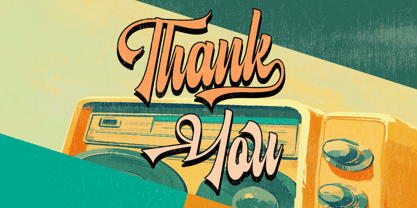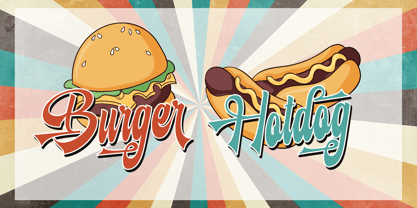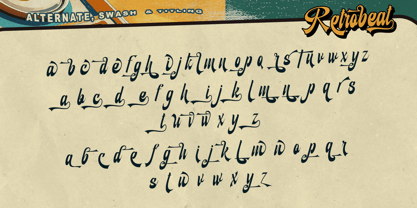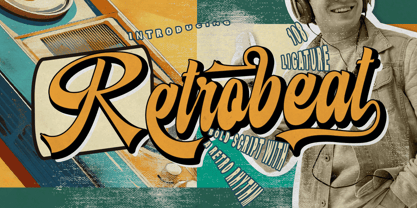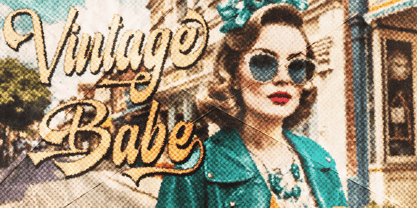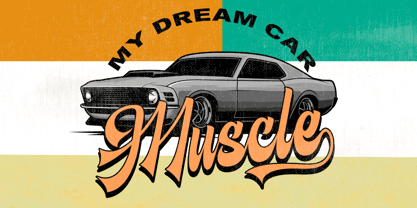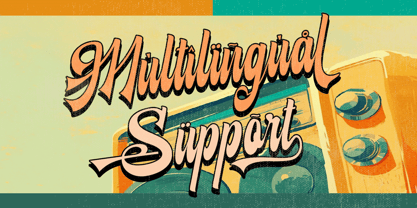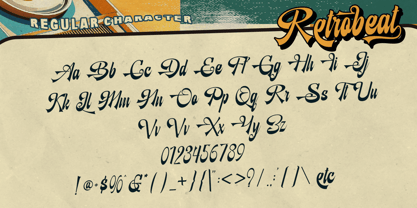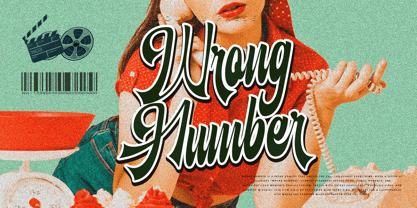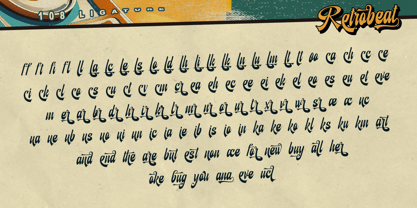
Retrobeat
by Letterara
The Retrobeat Font Family was designed by Thomas Aradea and published by Letterara. Retrobeat contains 2 styles and family package options. More about this family
Introducing Retrobeat, a bold script font that brings back the vibrant rhythm of the past. With its flowing strokes, strong curves, and groovy style, this typeface captures the true essence of retro design. Perfect for posters, logos, music covers, fashion branding, and social media graphics, Retrobeat delivers a funky vibe that makes every project stand out. Let your creativity dance to the bold rhythm of Retrobeat and turn your designs into timeless classics.
Designers: Thomas Aradea
Foundry: Letterara